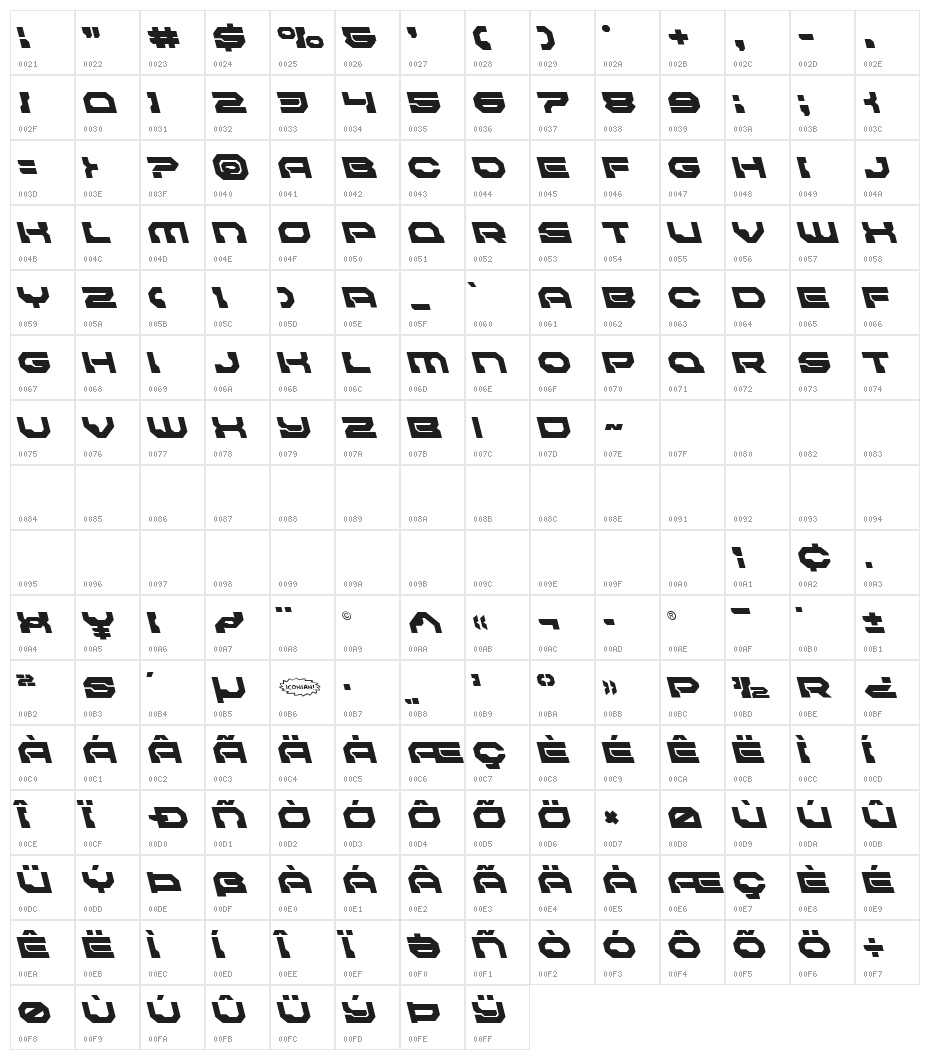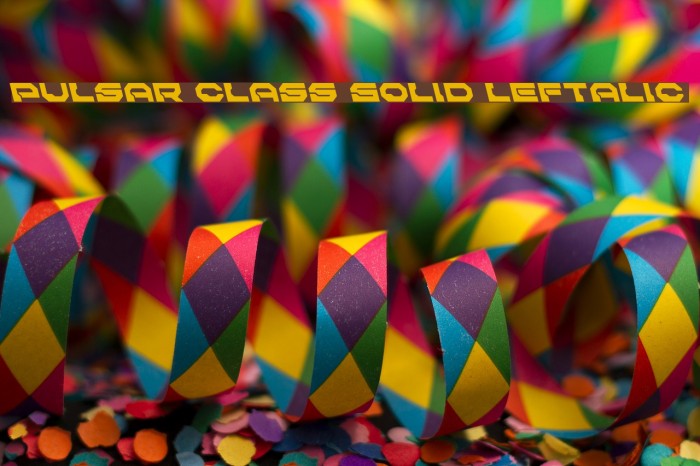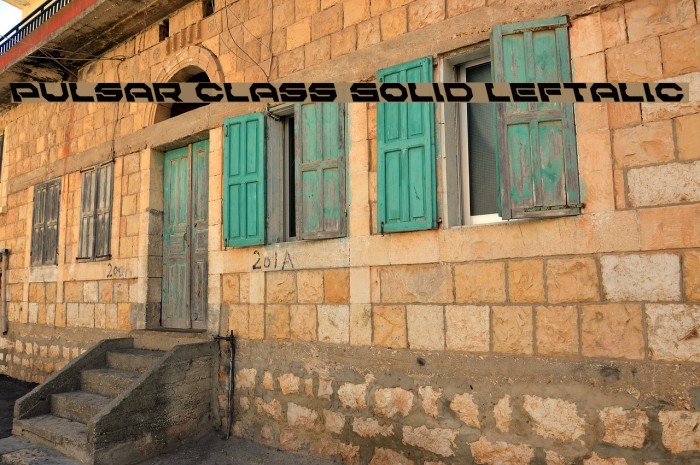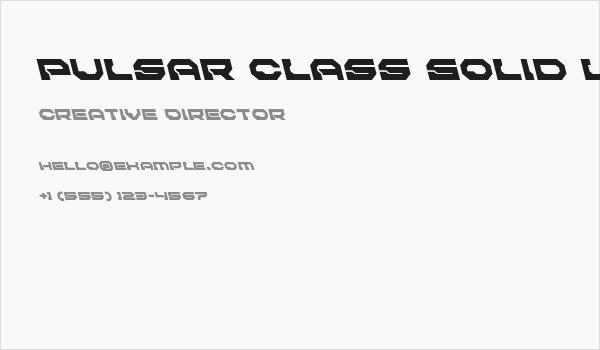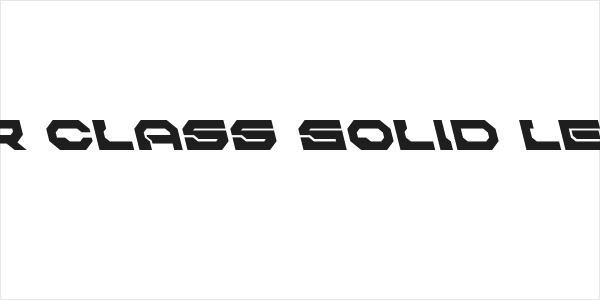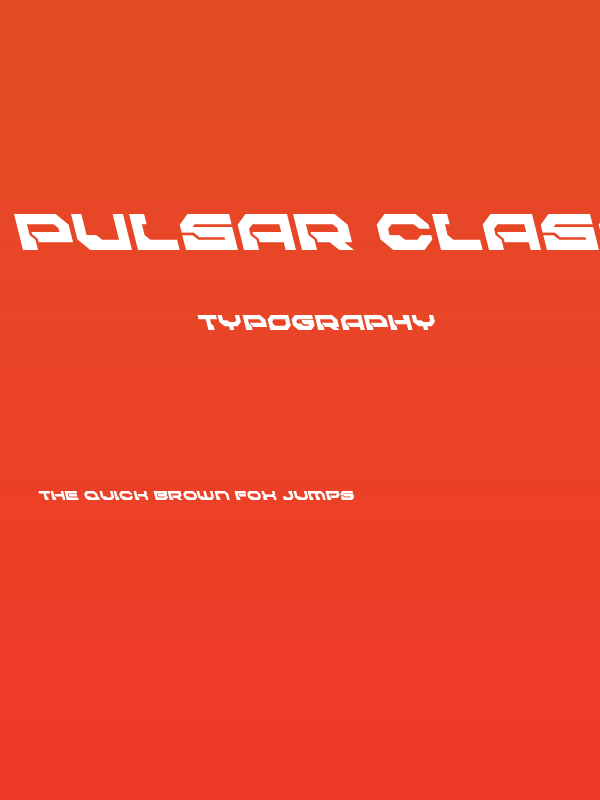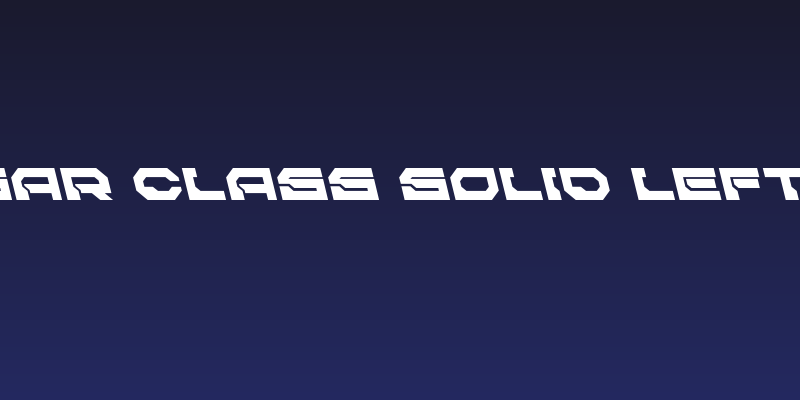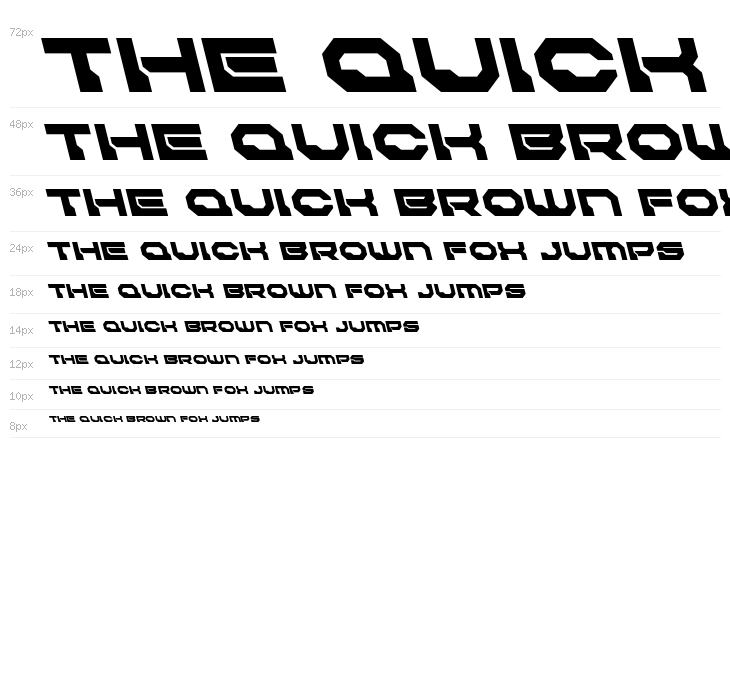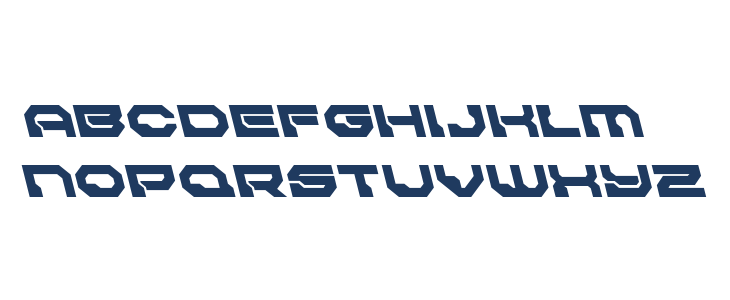
Pulsar Class Solid Leftalic Font
Pulsar Class Solid Leftalic Description
This font features a bold, futuristic design with angular, geometric shapes that give it a distinct, cutting-edge appearance. The characters are solid and robust, with a left-leaning italic slant that adds a sense of motion and dynamism. The uppercase and lowercase letters maintain a consistent style, with sharp edges and a blocky form that suggests strength and modernity. Numbers and special characters follow the same design principles, ensuring uniformity across all glyphs. The font's unique style makes it ideal for projects that require a bold statement or a modern, tech-inspired aesthetic.